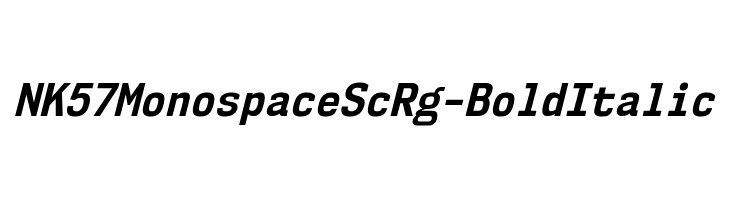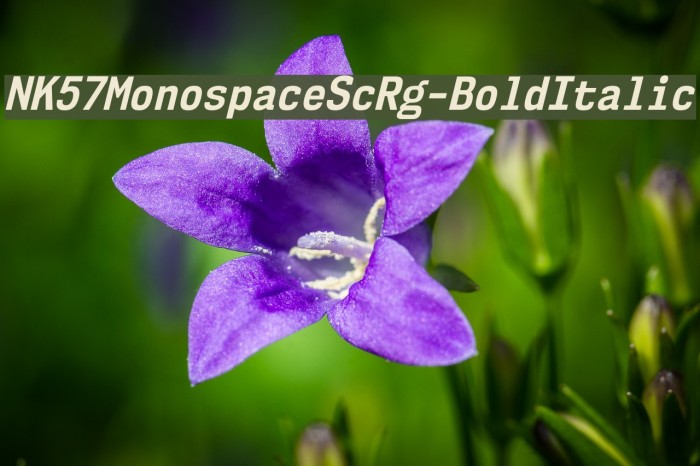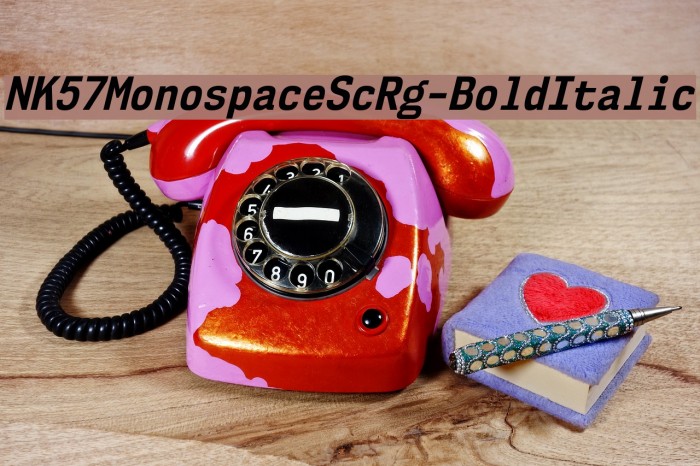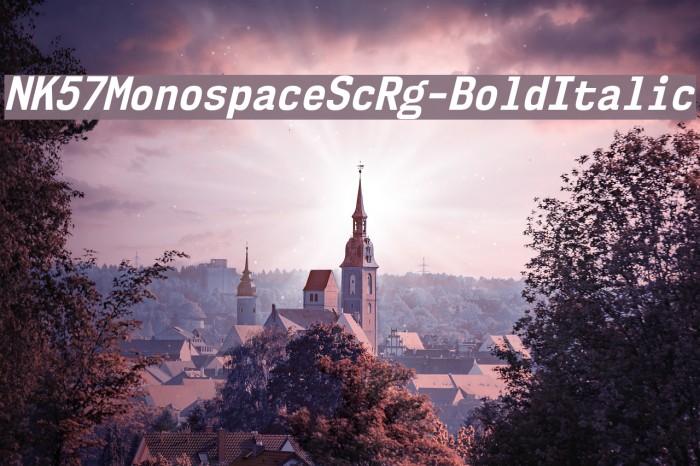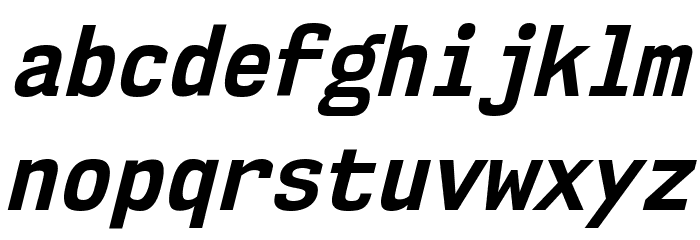
NK57MonospaceScRg-BoldItalic Font
NK57MonospaceScRg-BoldItalic Description
This font is a bold and italicized monospaced typeface, characterized by its uniform spacing and consistent width for each character. The design features a modern and sleek aesthetic, with a slight slant that adds a dynamic feel. The uppercase and lowercase letters maintain a clean and structured appearance, while the numerals and special characters are clear and easily distinguishable. The overall style is functional yet stylish, making it suitable for a variety of digital and print applications.
A bold, italicized monospaced font with a modern and sleek design from Basic fonts.
- Proposed Projects: Ideal for coding environments, technical documentation, and modern design projects requiring a clean and structured typeface.
- Use Case: Coding, Technical documentation, Digital design